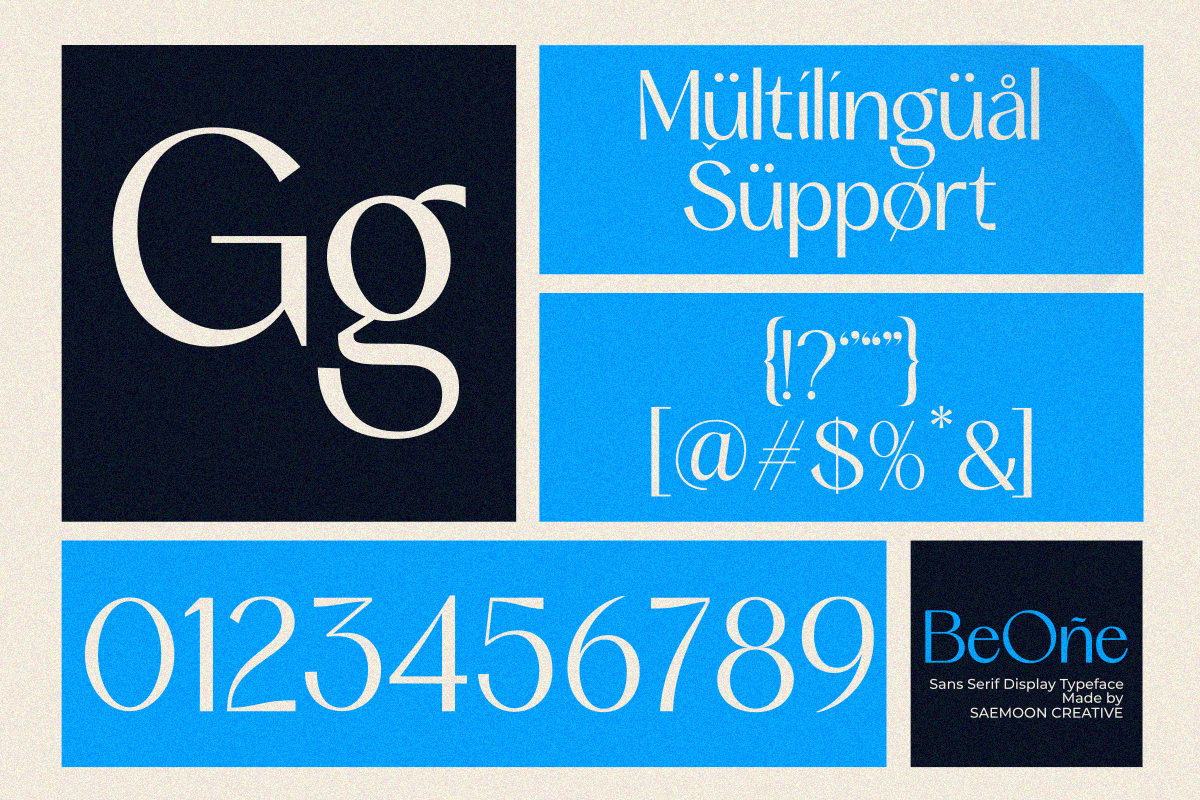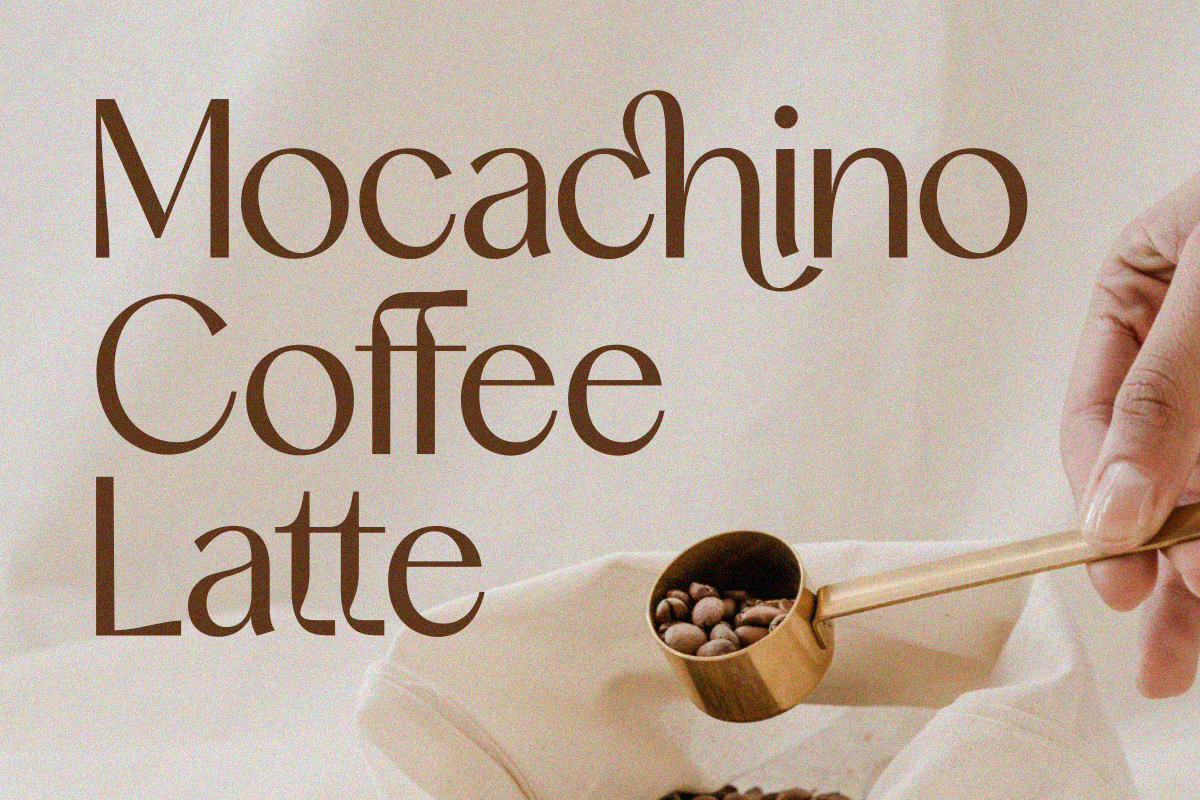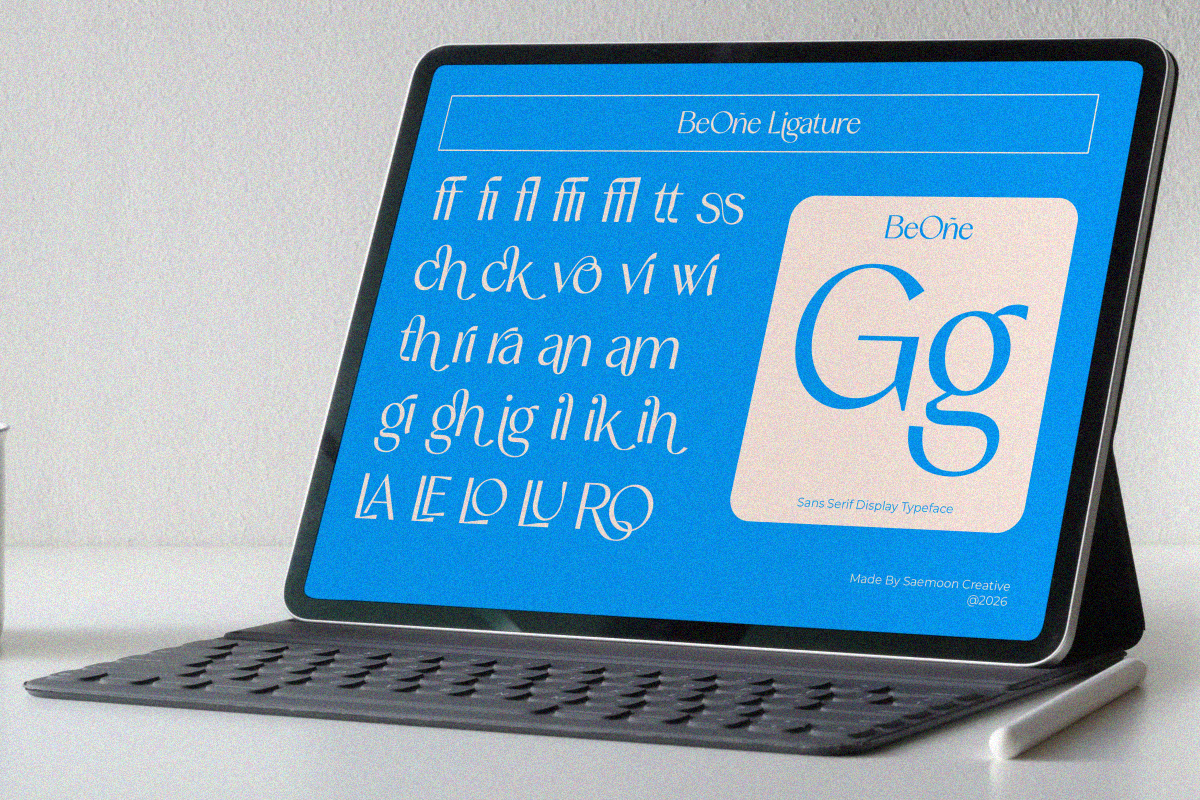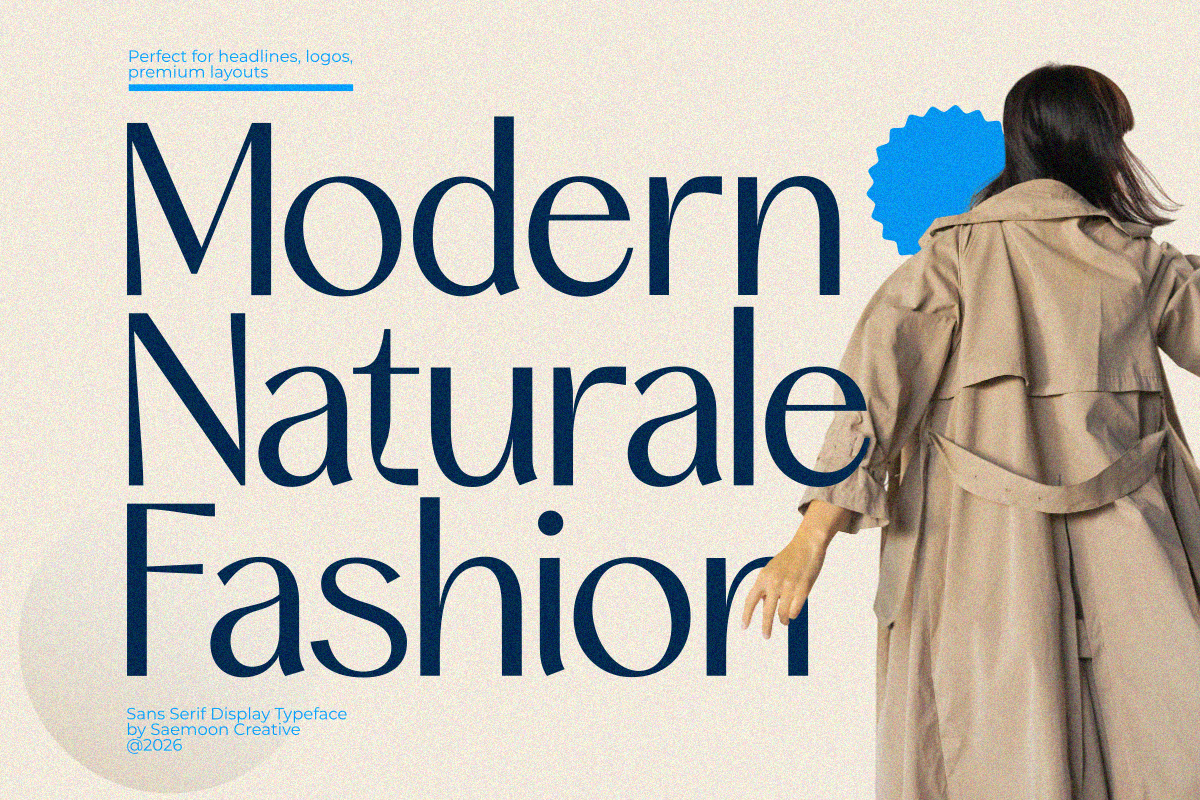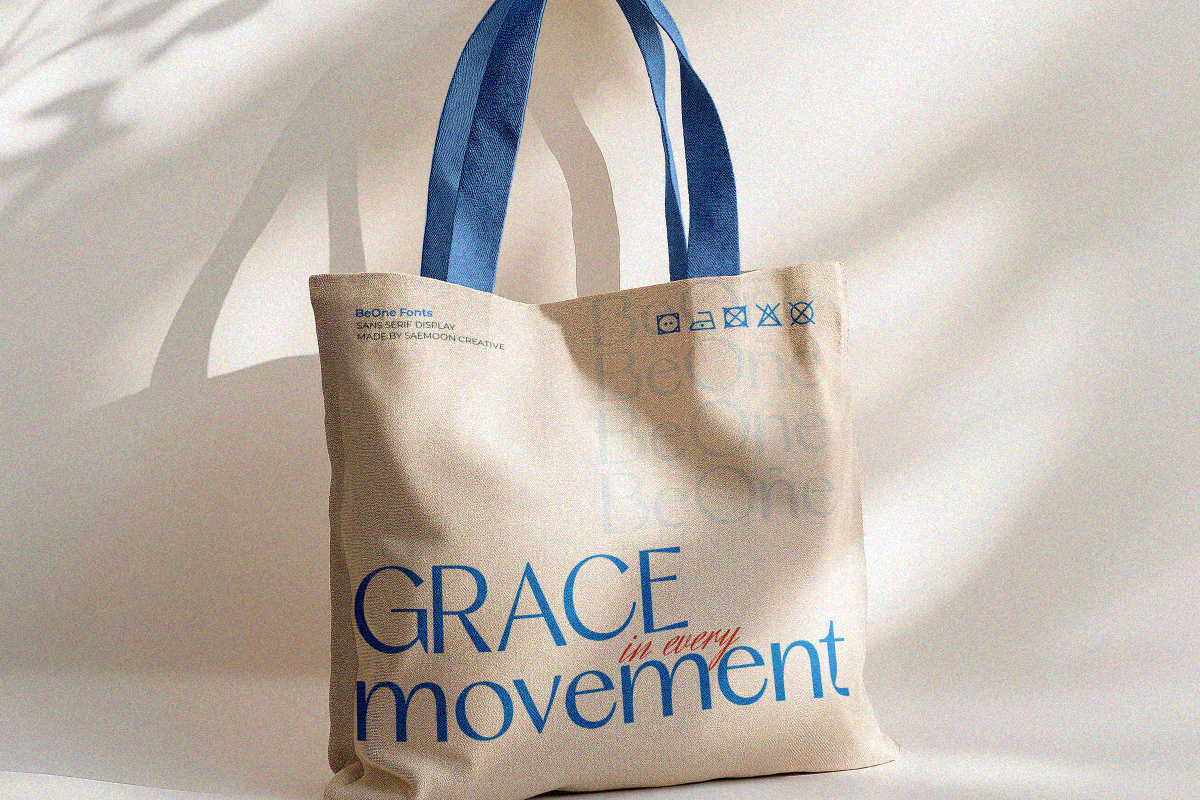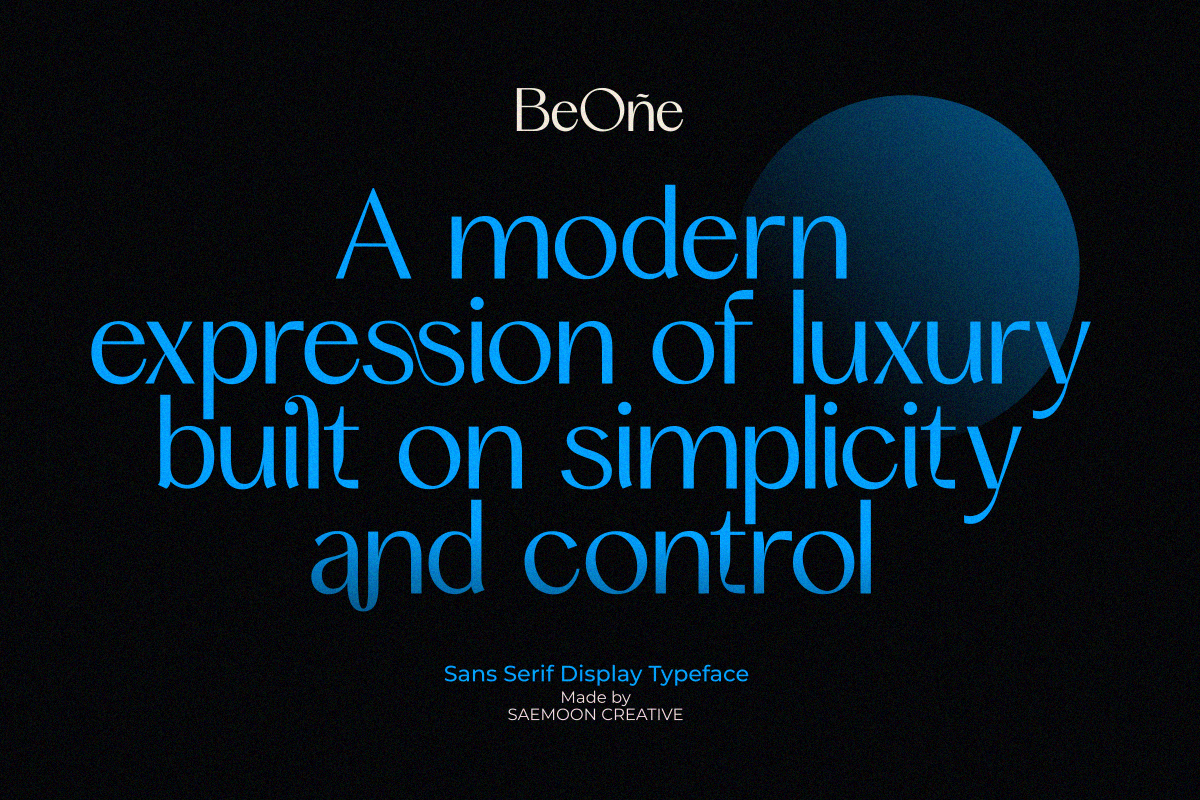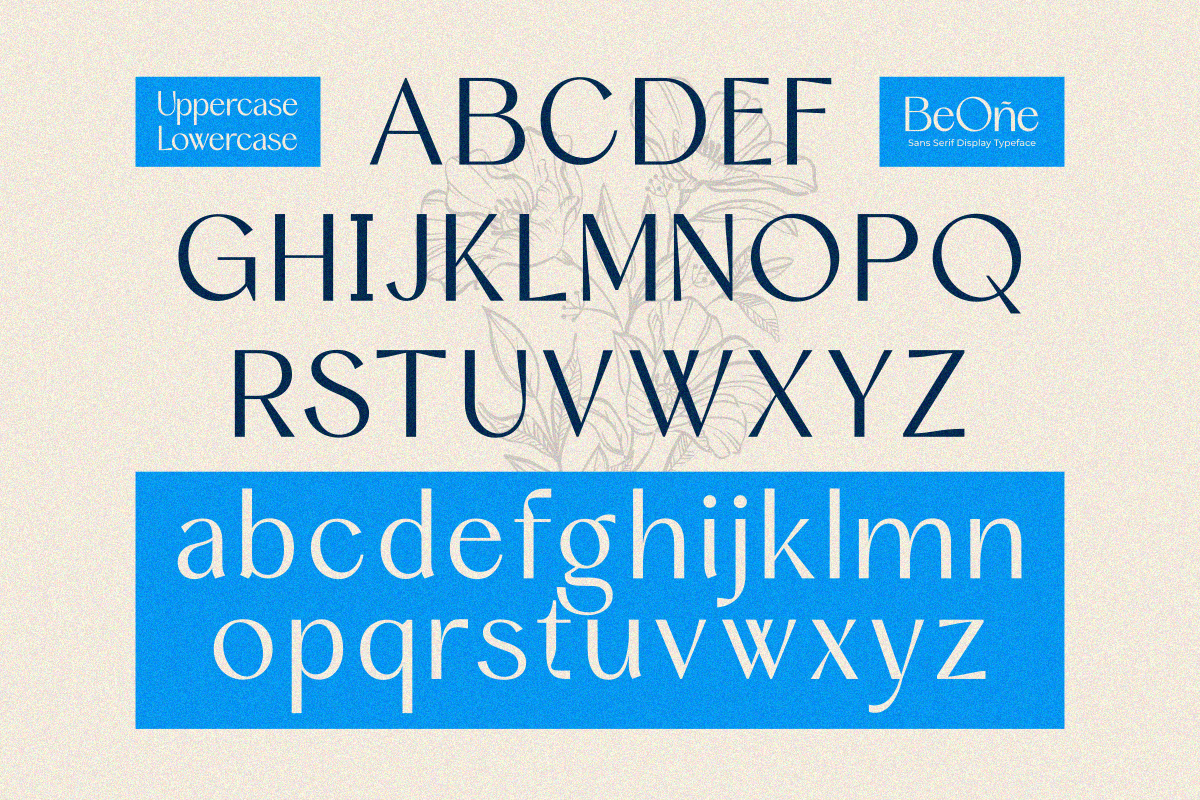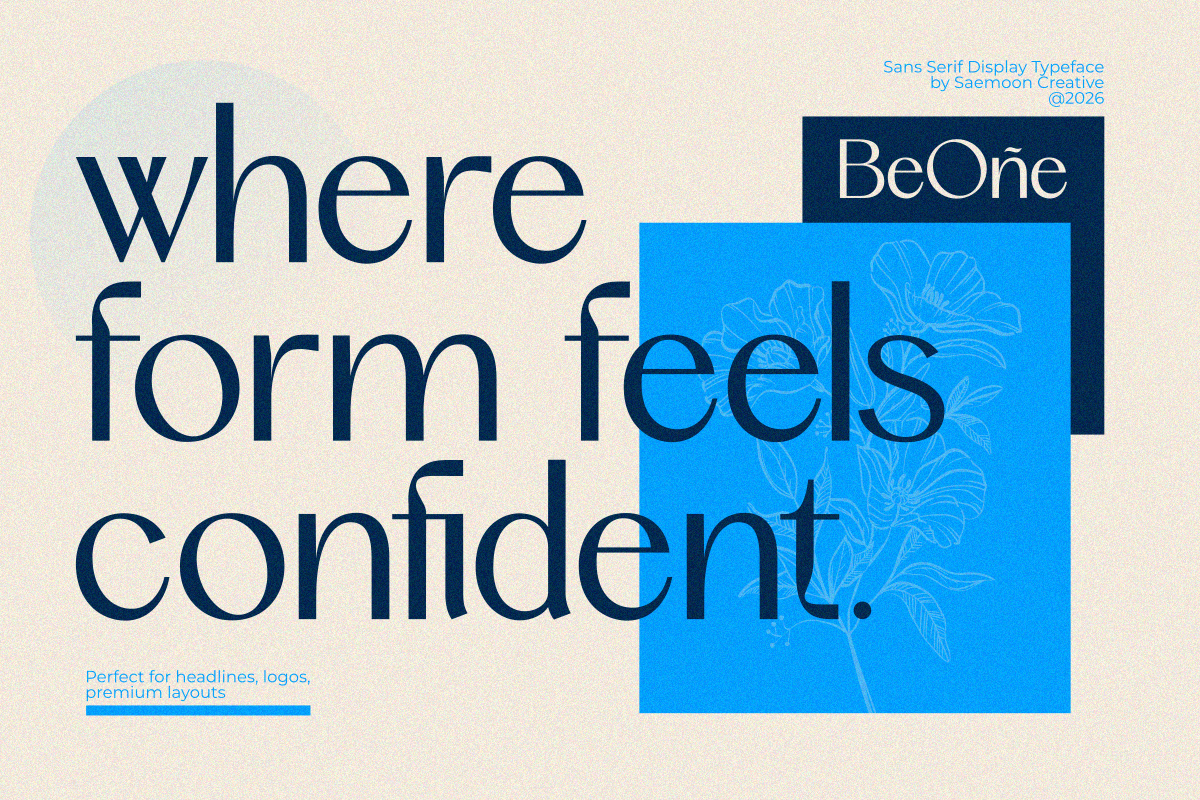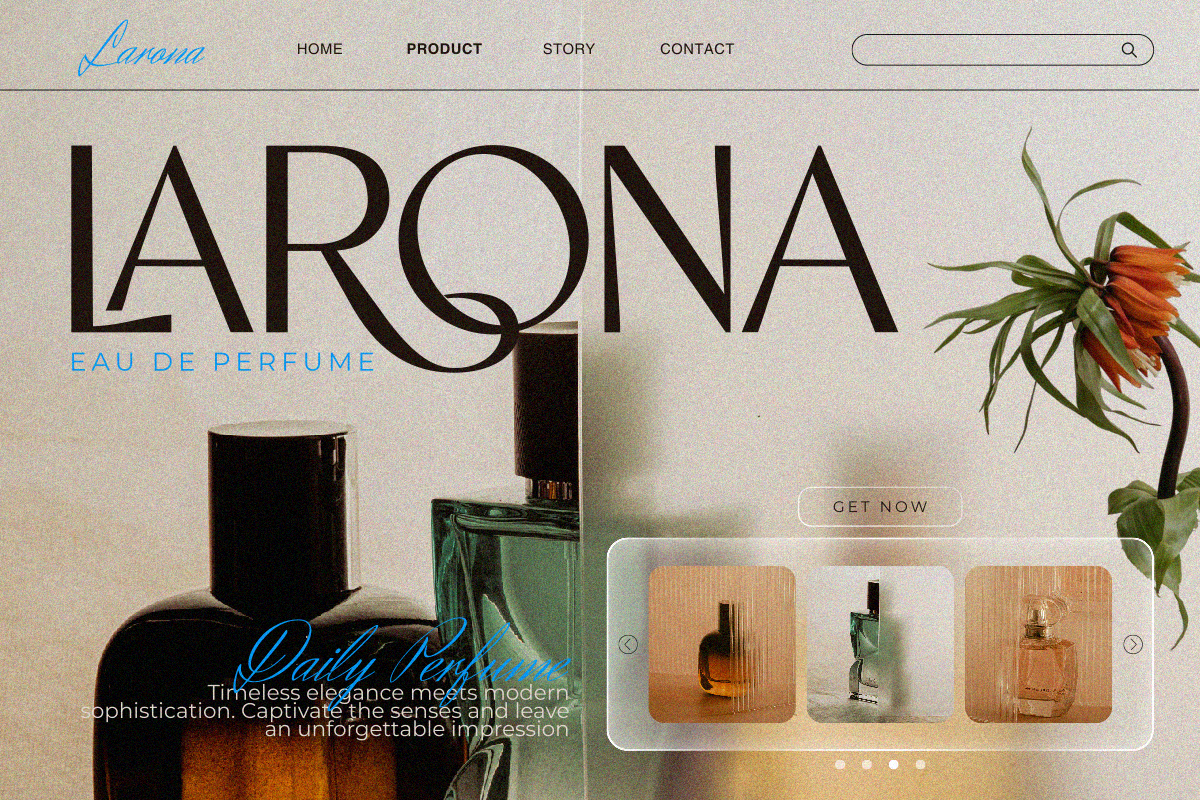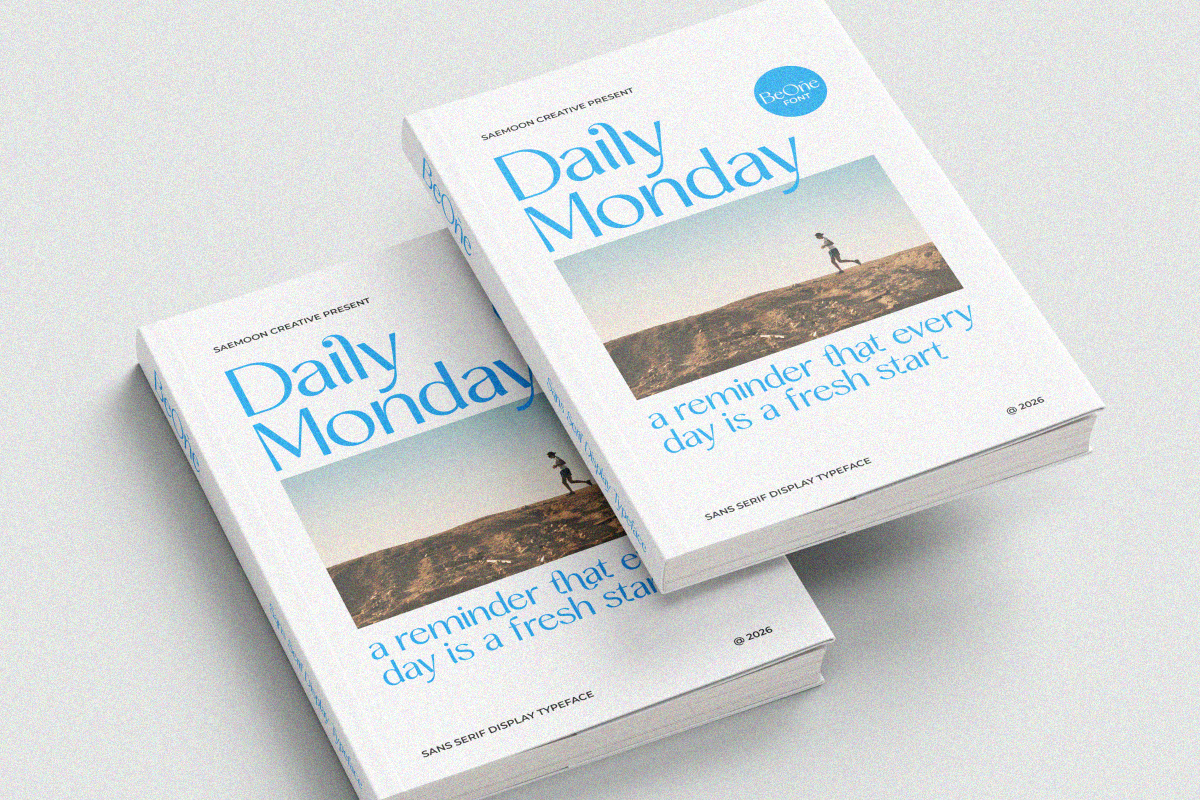
Beone Sans
Beone Sans – Modern Display Sans Serif
Beone Sans is a modern sans serif display typeface with a clean, confident, and contemporary character. Designed to create strong visual impact, this font balances simplicity with refined details, making it perfect for modern branding and headline-driven designs.
With a rich set of ligatures, Beone Sans adds subtle uniqueness and smoother letter combinations, giving your typography a more premium and professional feel. Its versatility allows it to perform beautifully across both print and digital projects.
Whether you’re working on logos, editorial layouts, posters, fashion visuals, or social media content, Beone Sans delivers clarity, style, and modern appeal.
- Modern sans serif display style
- Clean, minimal, and confident design
- Standard & discretionary ligatures
- Suitable for branding, logos, headlines, and editorial design
Perfect For Branding · Logo Design · Headlines · Posters · Editorial · Fashion · Social Media · Web Design